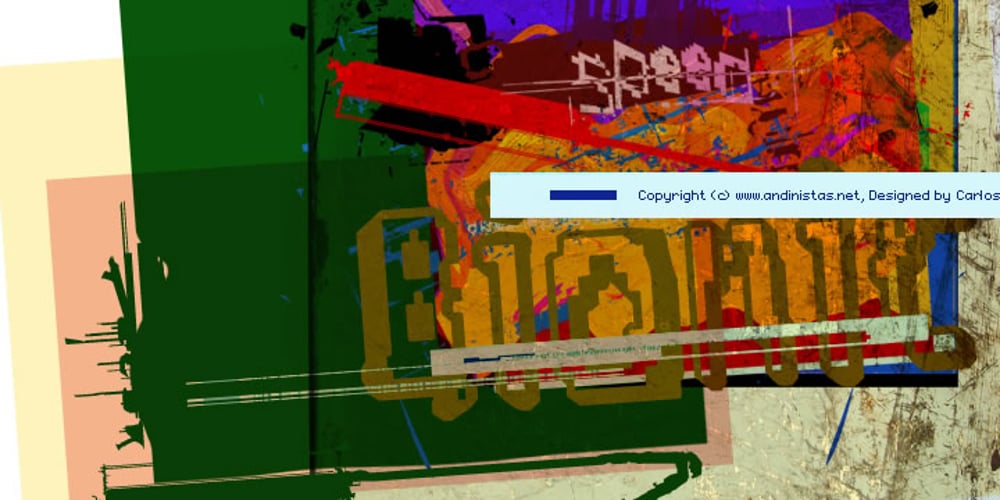
Pp_lepu Font Family was designed by Carlos Fabián Camargo Guerrero and published by Andinistas. Pp_lepu contains 8 styles and family package options. Pp_lepu was started in 1999 and consists in the systematic distortion of the printed letters on movies stickers. Its design process was based on burning, getting wet, drying, sanding, copying and scanning with low resolution until getting an exclusive group of digitizings without curved lines. For this reason, Pp_lepu has a hardcore rhythm in its 4 variations; each one thought as raw material for graphic design related with cyberpunk atmospheres. In another sense, its idealized usefulness seen from an unreal point of view, reflects the underground side of an experimental typographic system whose objective is to magnify the utopian vision of documents done with semi-pixeled letters that express technology. With this said, Pp_lepu 1, 2, 3 have 260 glyphs each and are ideal for logos, words, phrases located on covers, tags, cloths, wrapping, etc. Pp_lepu dingbats has 26 illustrations useful for background and textures.